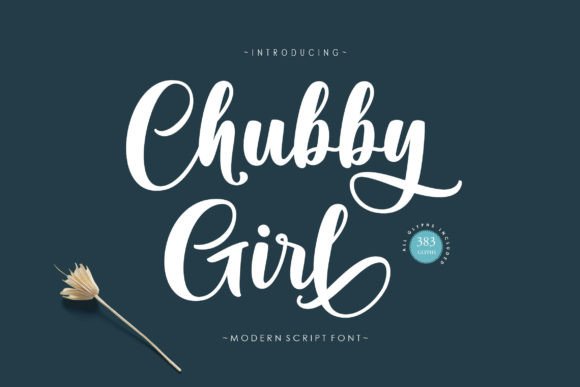
Introducing Chubby Girl Font: The Perfect Handwritten Script for Your Designs
In the world of typography, fonts play a crucial role in conveying the tone and personality of a brand or design. When it comes to adding a touch of elegance and sophistication to your creations, a beautiful script font is always a great choice. This is where Chubby Girl Font comes in – a stunning chubby script font that can elevate your designs to the next level.
What is Chubby Girl Font?
Chubby Girl Font is a unique and charming script font that is designed to add a handwritten touch to your designs. With its bold and curvy strokes, this font is perfect for creating beautiful wedding invitations, thank you cards, quotes, greeting cards, logos, business cards, and more.
Features of Chubby Girl Font
So, what makes Chubby Girl Font so special? Here are some of its key features:
- Handwritten look: Chubby Girl Font has a beautiful handwritten look that adds a personal touch to your designs.
- Chubby script: The font features bold and curvy strokes that give it a unique and playful look.
- Versatile: Chubby Girl Font can be used for a wide range of designs, from wedding invitations to business cards.
- Elegant: The font has an elegant and sophisticated look that is perfect for creating high-end designs.
Use Cases for Chubby Girl Font
Chubby Girl Font is a versatile font that can be used for a wide range of designs. Here are some of the most popular use cases:
Wedding Invitations
Chubby Girl Font is perfect for creating beautiful wedding invitations that set the tone for the big day.
Thank You Cards
The font can be used to create heartfelt thank you cards that show your appreciation.
Quotes and Greeting Cards
Chubby Girl Font is great for creating inspirational quotes and greeting cards that feature a personal touch.
Logos and Business Cards
The font can be used to create elegant logos and business cards that make a lasting impression.
Why Choose Chubby Girl Font?
With so many fonts available, why choose Chubby Girl Font? Here are some reasons:
- Unique look: Chubby Girl Font has a unique and distinctive look that sets it apart from other fonts.
- Elegant and sophisticated: The font has an elegant and sophisticated look that is perfect for high-end designs.
- Easy to read: Despite its bold strokes, Chubby Girl Font is easy to read and understand.
- Versatile: The font can be used for a wide range of designs, making it a great addition to your font library.
Tips and Tricks
Here are some tips and tricks to get the most out of Chubby Girl Font:
In conclusion, Chubby Girl Font is a beautiful and versatile script font that can elevate your designs to the next level. With its unique and elegant look, it’s perfect for creating stunning wedding invitations, thank you cards, quotes, greeting cards, logos, business cards, and more. So why wait? Download Chubby Girl Font today and start creating amazing designs!